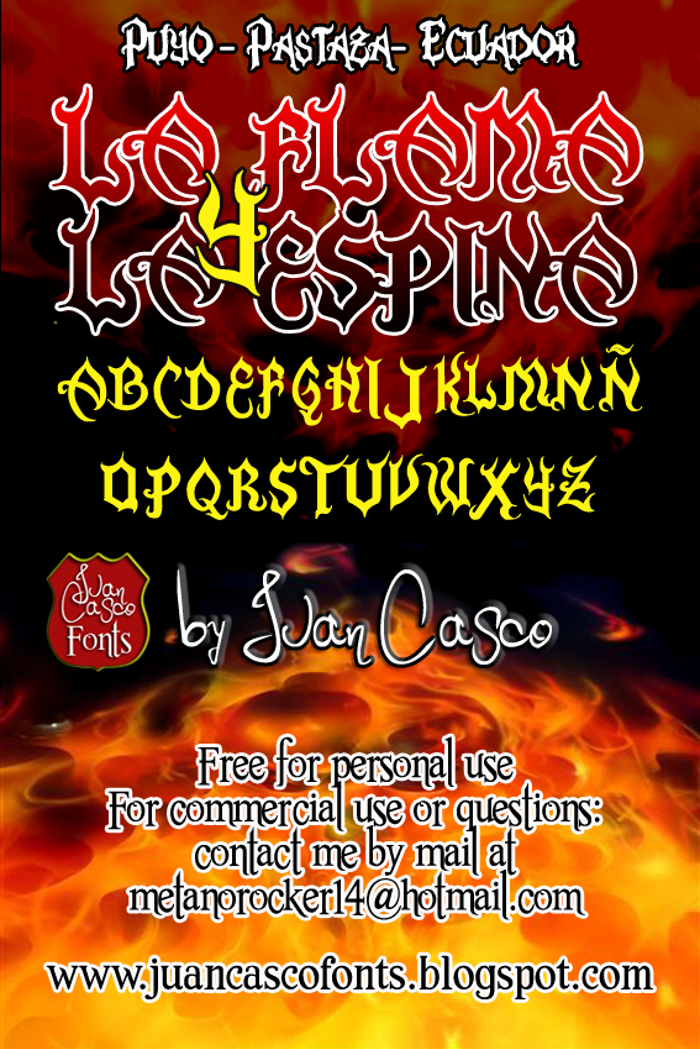
La Flama y La Espina Font
La Flama y La Espina Font is a Gothic font and was created on . Since then, it has been downloaded 9,213 times and added to 238 collections. 5 people have liked La Flama y La Espina Font and given it a thumbs up.
A spiked face pposite to Pasion Acustica